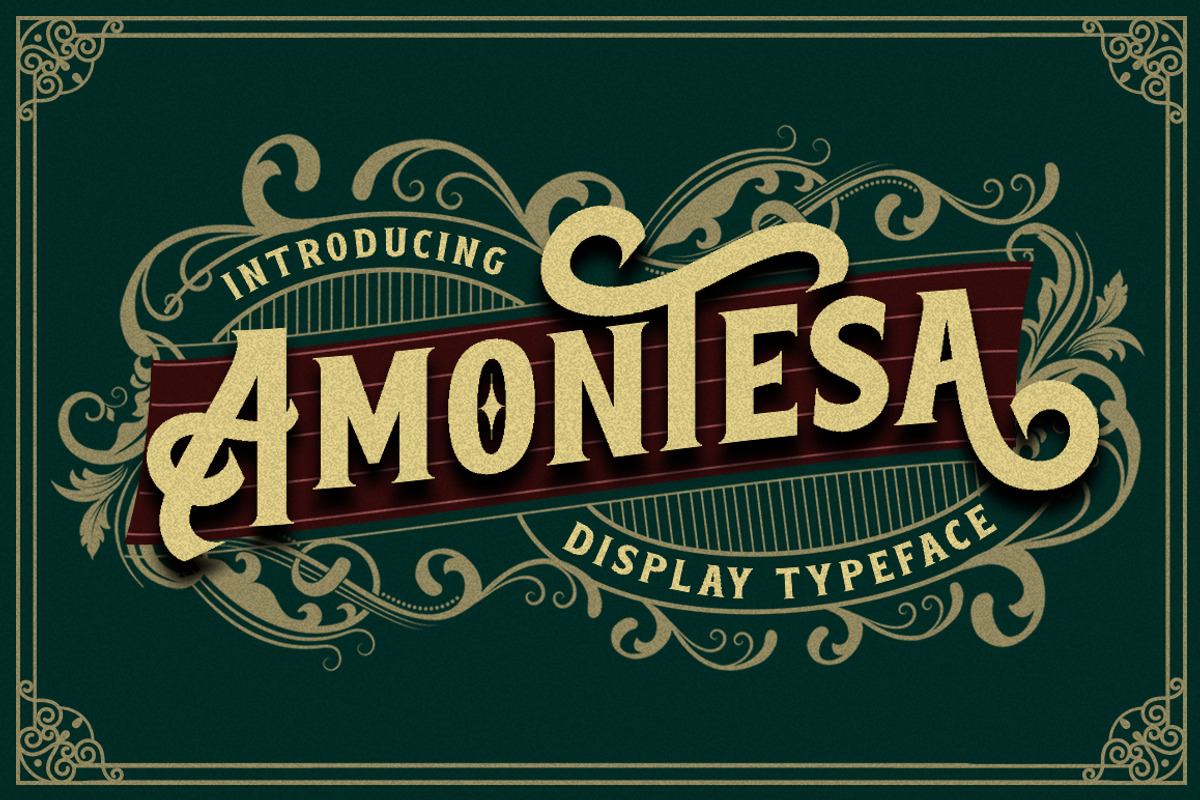
Amontesa Font Free Download is a luxurious and elegant typeface that exudes timeless sophistication. Featuring graceful curves, high-contrast strokes, and refined serif details, this font is ideal for wedding invitations, upscale branding, editorial layouts, and fashion-related designs that demand a touch of class.
Amontesa Font Free Download stands out with its stylish personality—offering a perfect balance between traditional serif structure and modern elegance. Whether you’re crafting a high-end logo or designing a romantic event suite, this font will instantly elevate your project’s visual appeal.